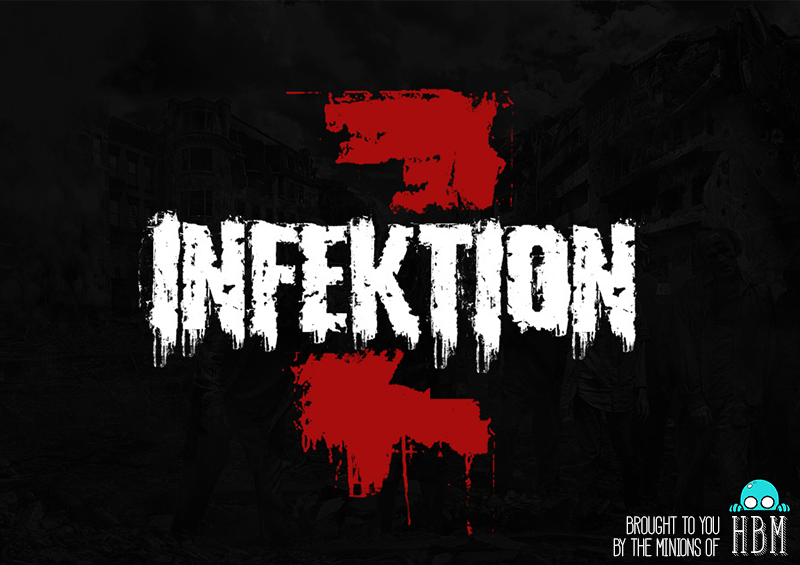
INFEKTION is inspired by post-apocalyptic, distressed/worn out designs like you would normally see in shows like "The Walking Dead". INFEKTION is suited to any post-apocalyptic work as well as giving a grungy, dirty look to posters, logos & more! If you like this font consider donating please visit http://www.monsterswithin.com - Big Minion |